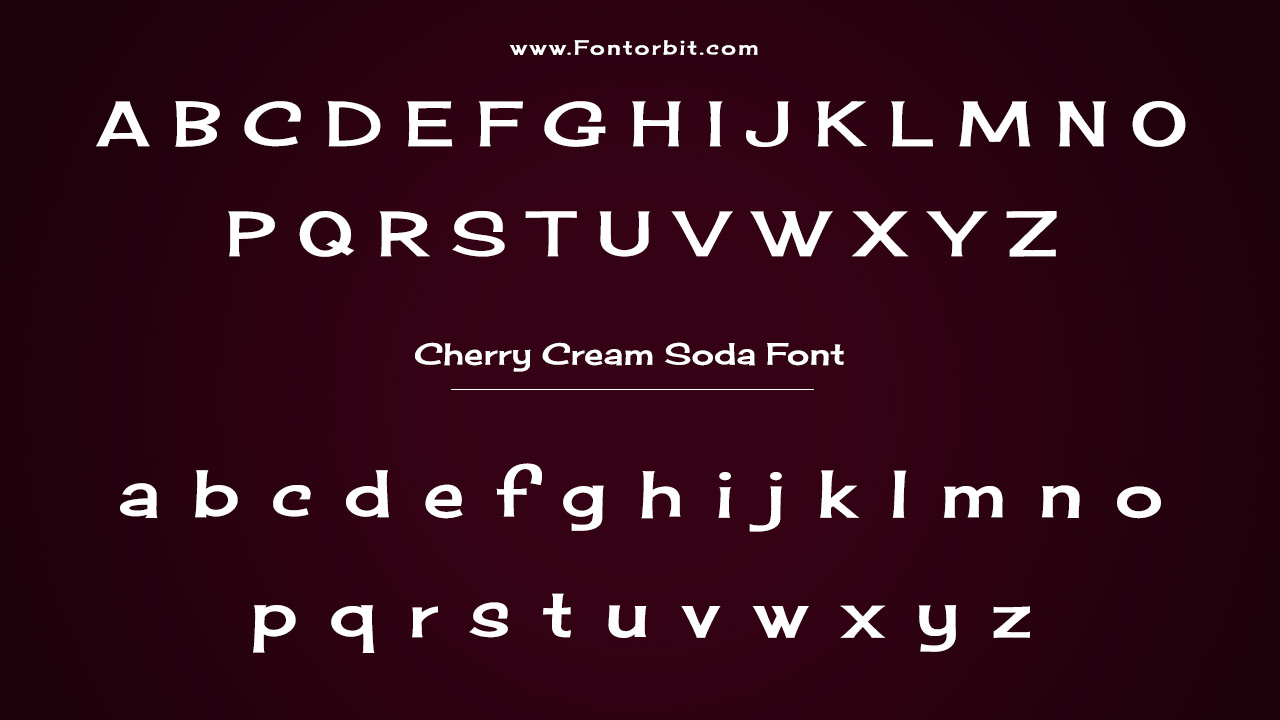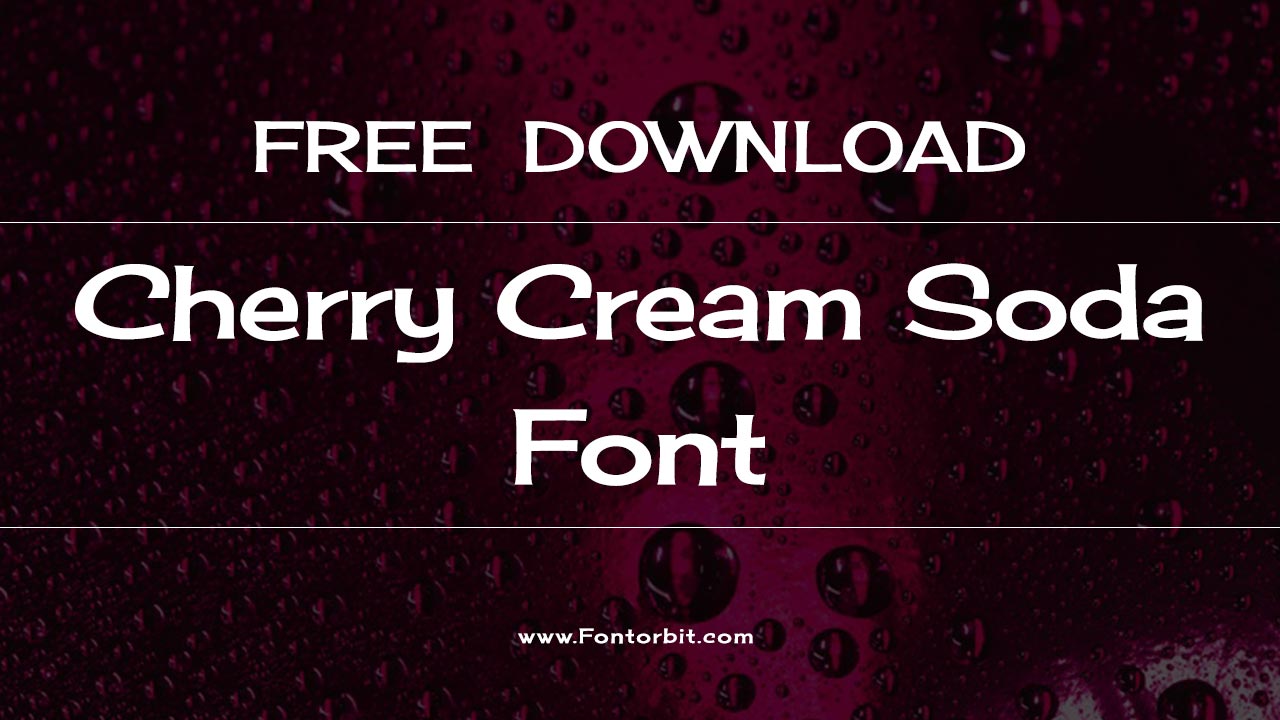
Cherry Cream Soda is a playful, whimsical font designed by Font Diner. Published in 2012, it is part of the decorative family characterized by its rounded letters and cheerful aesthetic. This makes it popular for projects requiring a fun and lighthearted touch.
Cherry Cream Soda has a unique style with its bubbly and vintage flair. Here’s a glimpse of its family:
- Cherry Cream Soda Regular
- Cherry Cream Soda Bold
- Cherry Cream Soda Italic
Notable Uses Of Cherry Cream Soda
Cherry Cream Soda is widely used in various creative projects. You’ll often see this font in:
- Children’s book covers
- Party invitations
- Event posters
- Logo designs for retro-themed brands
- Social media graphics
Cherry Cream Soda is ideal for applications where a playful tone is essential. Consider using this font in:
- Greeting cards
- Web headers
- T-shirt designs
- Branding for cafes and dessert shops
- Event promotions, especially for children or playful themes
Cherry Cream Soda is a delightful font that can add a fun and inviting aesthetic to your design projects. Its charming style and versatile applications make it perfect for anyone looking to infuse whimsy into their work.
5.Is Cherry Cream Soda Suitable For Body Text?
It is best used for headlines and titles rather than body text.
6.What Style Of Design Does Cherry Cream Soda Fit?
It fits well with playful, retro, and casual designs.